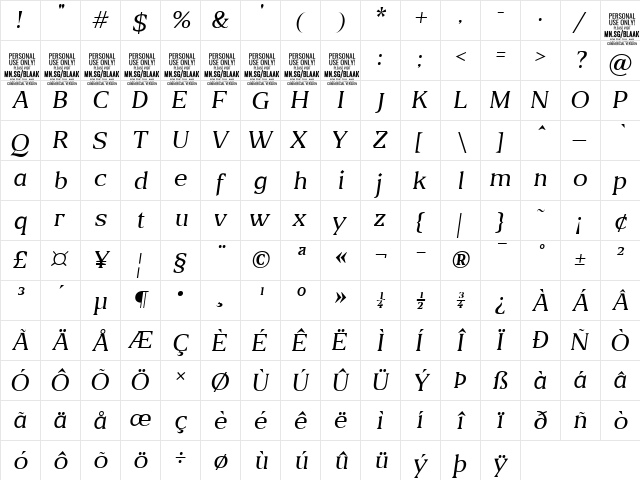
Blaak Thin PERSONAL USE Italic
Italic · Mans Greback Unidaas & Mans Greback ·
DesignerUnidaas & Mans Greback
Design Context for Blaak Thin PERSONAL USE Typeface
Blaak Thin PERSONAL USE offers clean, dependable letterforms without strong stylistic allegiance, making it a practical choice for designers who need flexibility. Its italic angle brings a sense of urgency and motion to the letterforms. The delicate stroke weight brings airiness and refinement to layouts.
Pro Tip: Use Blaak Thin PERSONAL USE for emphasis, pull quotes, and subheadings where its slanted energy can add rhythm to the layout.